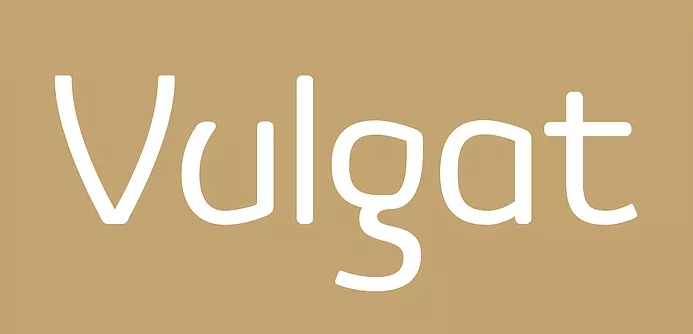
Vulgat Font
Vulgat Font is perfect for contemporary magazine layouts, modern brand identities, editorial headlines, cultural publications, art gallery catalogs, fashion photography, architectural presentations, creative agency portfolios, design studio branding, and avant-garde advertising campaigns.
What makes Vulgat Font so exciting is its bold geometric structure and contemporary edge that perfectly captures the essence of modern design philosophy through clean lines and confident letterforms that make powerful statements without unnecessary ornamentation. This typeface embodies cutting-edge design thinking through its minimalist approach and strong visual presence that commands attention while maintaining sophisticated restraint. The font's compelling appeal lies in its ability to communicate progressive thinking, cultural awareness, and design sophistication, making it ideal for brands and projects that need to establish contemporary credibility and forward-thinking positioning.
Vulgat Font comes in multiple weights and styles including Thin, Light, Regular, Medium, Bold, and Black variations, each available in both Roman and Italic styles, providing comprehensive typographic solutions for complex modern design systems and cultural communication projects.
Whether you're developing contemporary brand identities, creating editorial design solutions, or producing cultural marketing materials, Vulgat Font Free Download delivers exceptional versatility and modern sophistication. This striking typeface performs beautifully across all contemporary applications, from intimate printed materials to large-scale digital displays, maintaining its distinctive character while ensuring optimal readability. The font's precisely engineered letterforms feature clean geometry and balanced proportions that create harmonious layouts with genuine contemporary appeal.
Design professionals and cultural institutions consistently choose Vulgat Font for projects requiring modern sophistication and contemporary positioning. Its progressive styling makes it particularly effective for art galleries, design agencies, fashion brands, and cultural organizations seeking to communicate innovation, creativity, and forward-thinking values. The font's versatile nature and contemporary character enable seamless integration across various modern touchpoints while maintaining consistent brand voice and appealing to audiences who appreciate cutting-edge design and cultural sophistication.